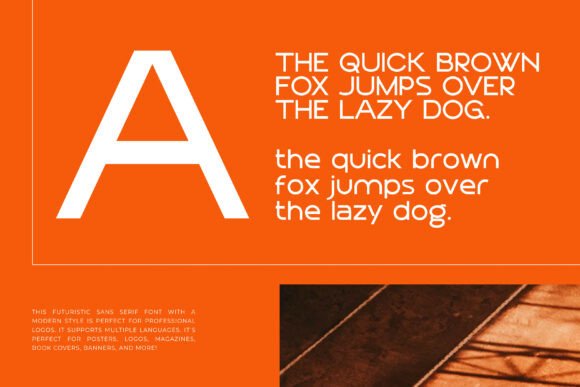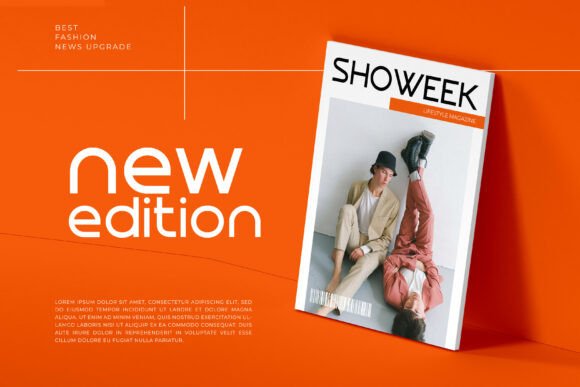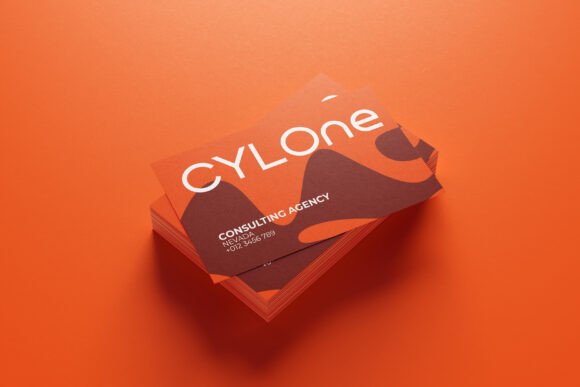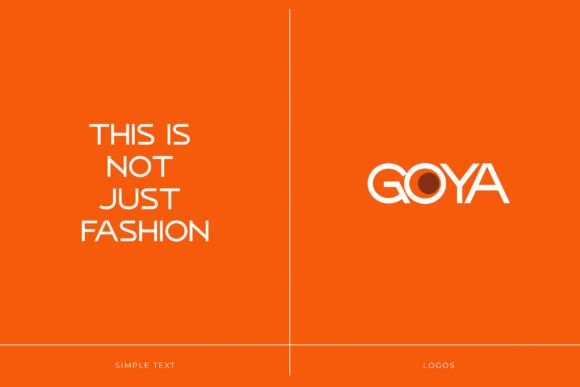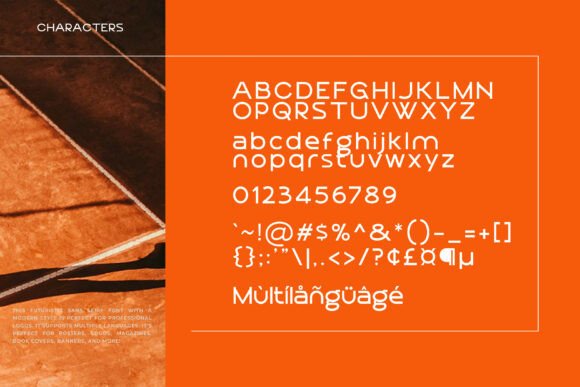
Begonia Font: Elevate Your Designs with a Clean and Modern Sans-Serif
In the world of typography, a font can make or break a design. For designers and crafters looking to elevate their projects, Begonia Font is an excellent choice. This clean and modern sans-serif font is designed to bring a touch of sophistication and elegance to any design. With its smooth and light execution, Begonia Font is perfect for futuristic branding designs that require a sleek and modern look.
What Makes Begonia Font Stand Out?
Begonia Font boasts a unique combination of characteristics that make it an excellent addition to any design project. Here are a few key features that set it apart:
- Clean and Modern Design: Begonia Font features a clean and modern sans-serif design that is perfect for creating sleek and sophisticated designs.
- Smooth and Light Execution: The font’s smooth and light execution gives it a elegant look that is perfect for designs that require a touch of refinement.
- Versatility: Begonia Font can be matched with an incredibly large set of projects, making it a versatile font that can be used in a variety of design applications.
Begonia Font is an incredibly versatile font that can be used in a wide range of design projects. Here are a few ideas to get you started:
- Posters: Create eye-catching posters that grab attention with Begonia Font.
- Logos: Use Begonia Font to create modern and sleek logos that perfectly represent your brand.
- Magazines: Add a touch of sophistication to your magazine designs with Begonia Font.
- Book Covers: Create stunning book covers that stand out on the shelves with Begonia Font.
- Banners: Use Begonia Font to create eye-catching banners that grab attention.
Why Choose Begonia Font?
With so many fonts to choose from, why should you choose Begonia Font? Here are a few reasons why:
- Unique and Modern Look: Begonia Font offers a unique and modern look that will make your designs stand out.
- Elegant and Sophisticated: The font’s smooth and light execution gives it an elegant and sophisticated look that is perfect for designs that require a touch of refinement.
- Easy to Read: Begonia Font is easy to read, making it perfect for designs that require a clear and concise message.
How to Use Begonia Font
- Combine with Other Fonts: Combine Begonia Font with other fonts to create a unique and interesting look.
In conclusion, Begonia Font is an excellent choice for designers and crafters looking to elevate their designs. With its clean and modern sans-serif design, smooth and light execution, and versatility, Begonia Font is perfect for a wide range of design projects. Whether you’re creating posters, logos, magazines, book covers, or banners, Begonia Font is sure to make your designs stand out. So why wait? Download Begonia Font today and start creating stunning designs!